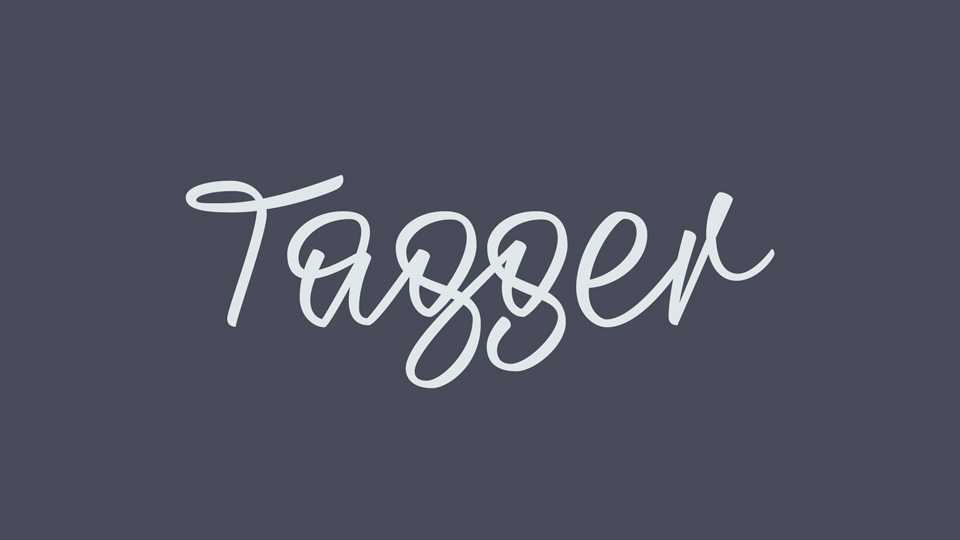
Tagger Script Font › Fontesk
Download Tagger font, a modern script with a dynamic character and casual forms inspired by Warsaw’s graffiti tags. Tagger is a perfect fit for visual identity of bars, restaurants, shops.
Designer: Zuzanna Rogatty